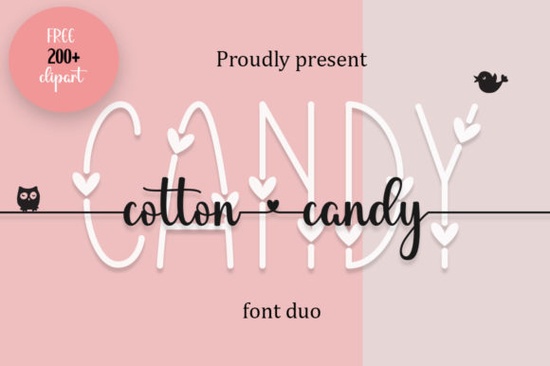
If you're looking for a font that adds both elegance and playfulness to your designs, Cotton Candy Font is a great choice. This duo font features a decorative and handwritten style, making it perfect for a wide range of creative projects. Whether you're a designer, crafter, or print-on-demand seller, Cotton Candy can help you create unique and appealing visuals.
Why Choose Cotton Candy Font?
Cotton Candy Font stands out with its dainty and delicate swashes. These intricate details can add a touch of sophistication and charm to any design. The font's PUA encoding means you can easily access all the glyphs and swashes, giving you more flexibility and creativity in your work.
Perfect for Crafty Ideas
Whether you're designing wedding invitations, creating custom T-shirts, or crafting social media graphics, Cotton Candy Font can be a versatile addition to your toolkit. Its elegant and playful nature makes it suitable for a variety of themes, from romantic and whimsical to modern and chic.
How to Use Cotton Candy Font Effectively
- Combine with Other Fonts: Pair Cotton Candy with a simple sans-serif font like Mama Flowers to create a balanced and visually appealing design. You can find Mama Flowers on our site.
- Play with Colors: Experiment with different color palettes to enhance the mood of your design. Soft pastels can complement the delicate nature of the font, while bold colors can make it pop.
- Use Swashes Wisely: The swashes in Cotton Candy can add a lot of character to your designs. Use them sparingly to avoid overwhelming the overall look. Try placing them at the beginning or end of words for a subtle yet impactful effect.
Comparing with Similar Fonts
While Cotton Candy Font is unique, it's helpful to compare it with other popular decorative fonts to see which one best fits your project. For example, Monogram Love Curly offers a more traditional and ornate style, while Summer Beach has a more relaxed and casual vibe. Each font has its own strengths, so consider the specific needs of your project when choosing.
Tips for Designers and Crafters
- Test Different Sizes: See how the font looks at various sizes to ensure readability and visual impact. Smaller sizes might require simpler designs, while larger sizes can handle more detailed elements.
- Consider the Context: Think about where and how your design will be used. For example, if you're creating a logo, make sure the font is legible at small sizes and in different contexts.
- Get Feedback: Share your designs with others to get feedback. Sometimes, a fresh set of eyes can provide valuable insights and help you refine your work.